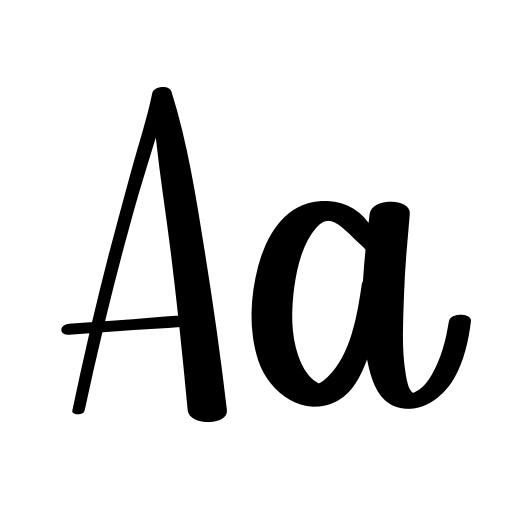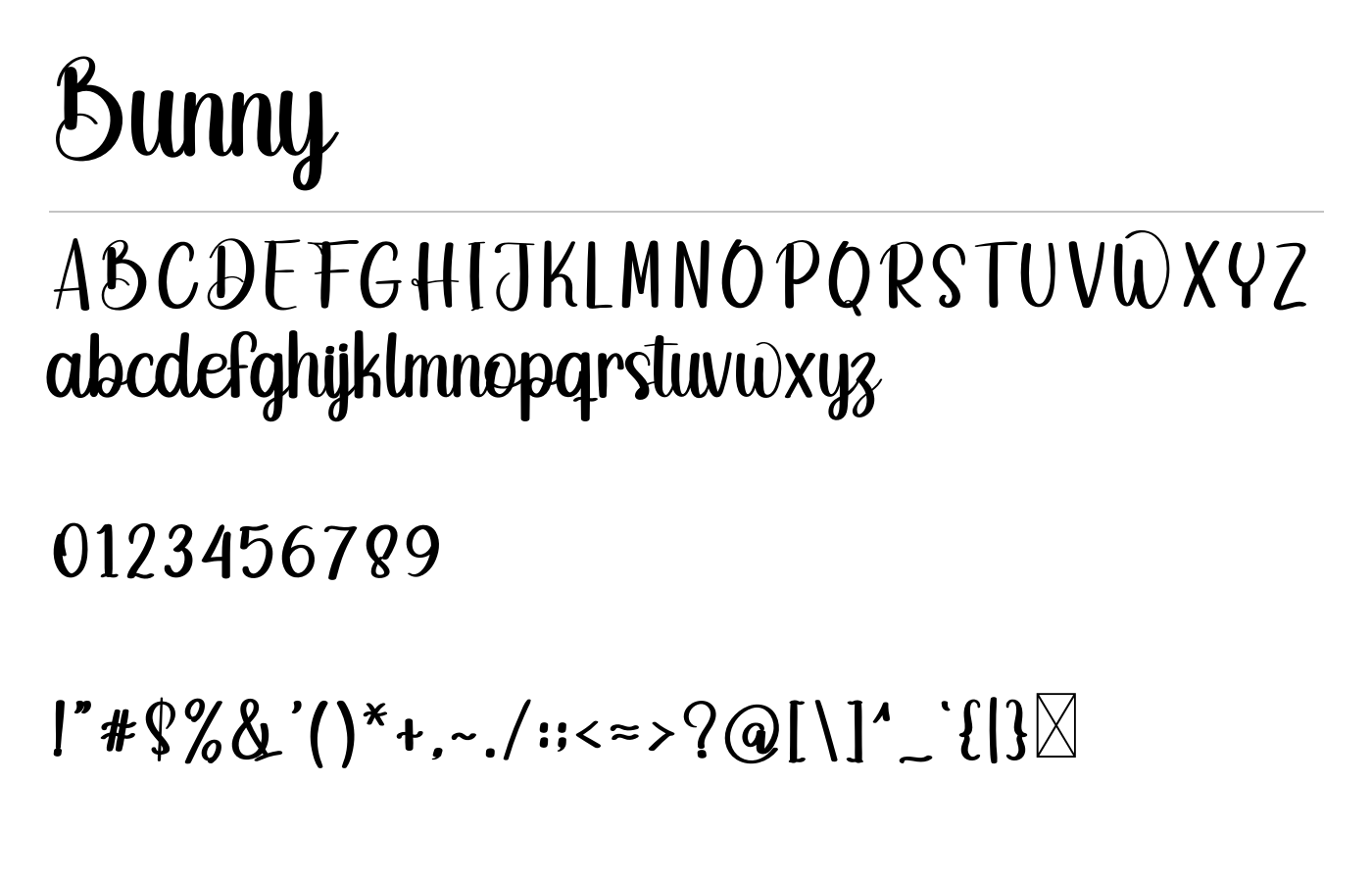
Bunny Font is a playful and charming script-style typeface with a lively, hand-drawn feel. Its varying stroke widths and whimsical letter shapes make it perfect for creative projects that aim to convey friendliness and warmth, such as invitations, branding, and casual headlines. This font works well where a touch of personality and informal elegance is desired.
Bunny Font